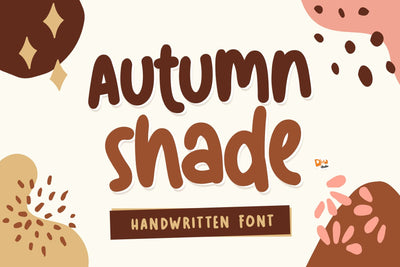
Autumn Shade
Autumn Shade – Handwritten Font
Autumn Shade is a cozy and expressive handwritten font that captures the warmth and charm of fall. With its relaxed curves and organic flow, this font brings a personal touch to seasonal projects, heartfelt messages, and rustic branding. Whether you're designing for autumn promotions, Thanksgiving invites, or social content, Autumn Shade adds a handwritten warmth that feels perfectly seasonal and down-to-earth.
Warm Handwritten Style: Smooth, personal strokes with an inviting tone.
Autumn-Inspired Feel: Designed to evoke the comfort of fall colors, leaves, and cozy moments.
Uppercase & Lowercase: Full character set for versatility in both titles and body text.
Ideal For: Fall-themed graphics, seasonal branding, cozy quotes, greeting cards, product packaging, and rustic logos.